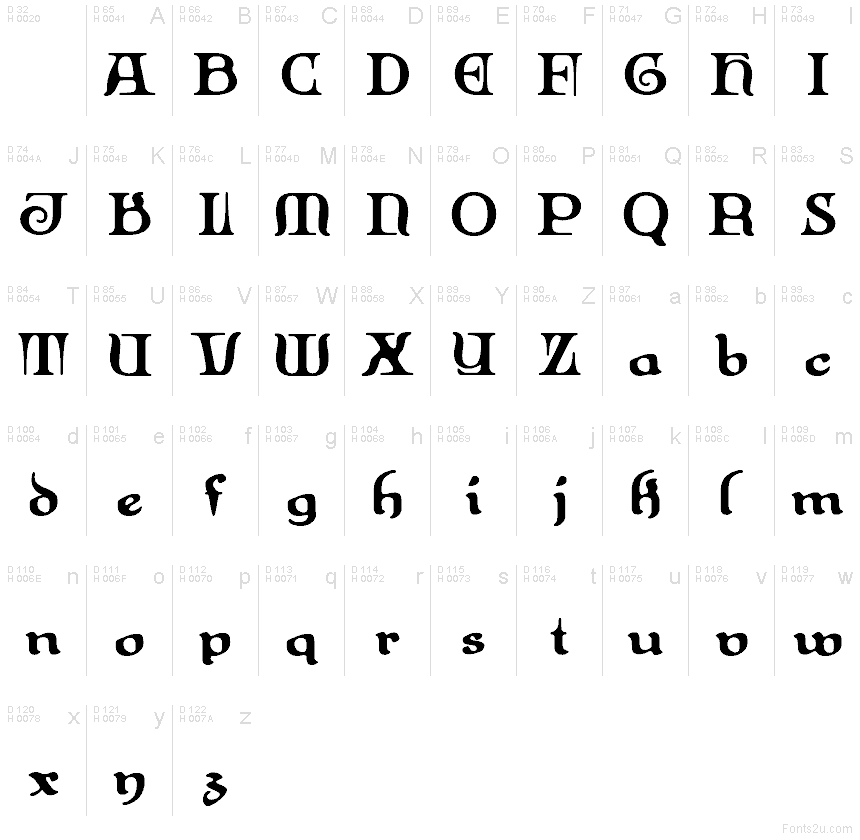
CSCharmingDrawn-Regular Demo
CS Charming Drawn font by Craft Supply Co. is a commanding free gothic celtic display font with expanded letters. Decorative in every corner and with an embellished exterior, it takes cues from ancient handwriting styles and even certain old typefaces. This font carries a heavy enough weight suitable to be used as the main title in all kinds of graphic designs.
Targeted uses include posters, banners, billboards, website heading scenes, typesetting books and magazines, or visual branding (logos). CS Charming Drawn would look stunning on invitation cards and greeting cards for weddings and birthdays. Other possible places to use it could be labels on products like drinks or fashion items packaging.